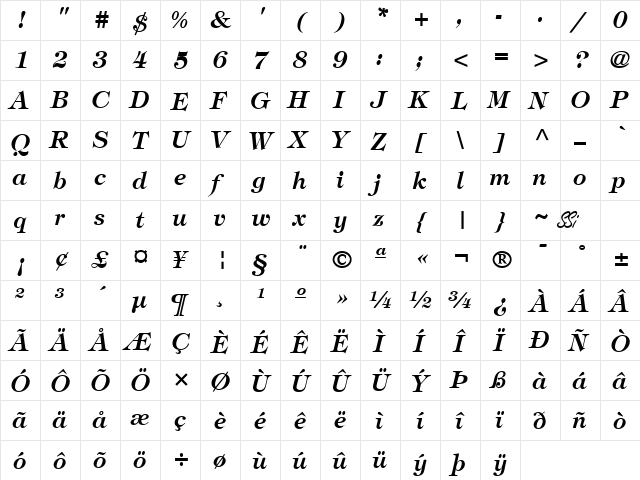
Sophisticate SSi Semi Bold Italic
Design Context for Sophisticate SSi Typeface
Sophisticate SSi offers clean, dependable letterforms without strong stylistic allegiance, making it a practical choice for designers who need flexibility. Its italic angle brings a sense of urgency and motion to the letterforms. Its bold stroke weight gives it real presence on the page.